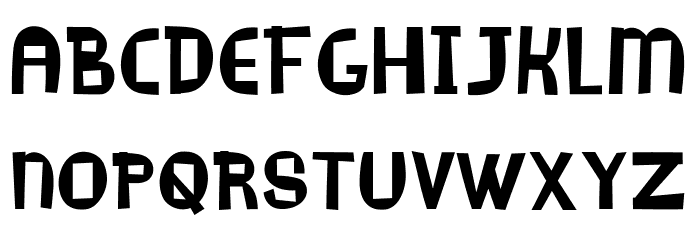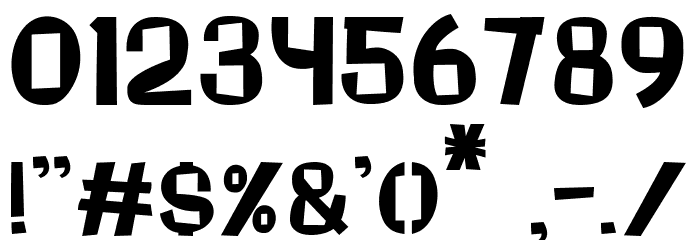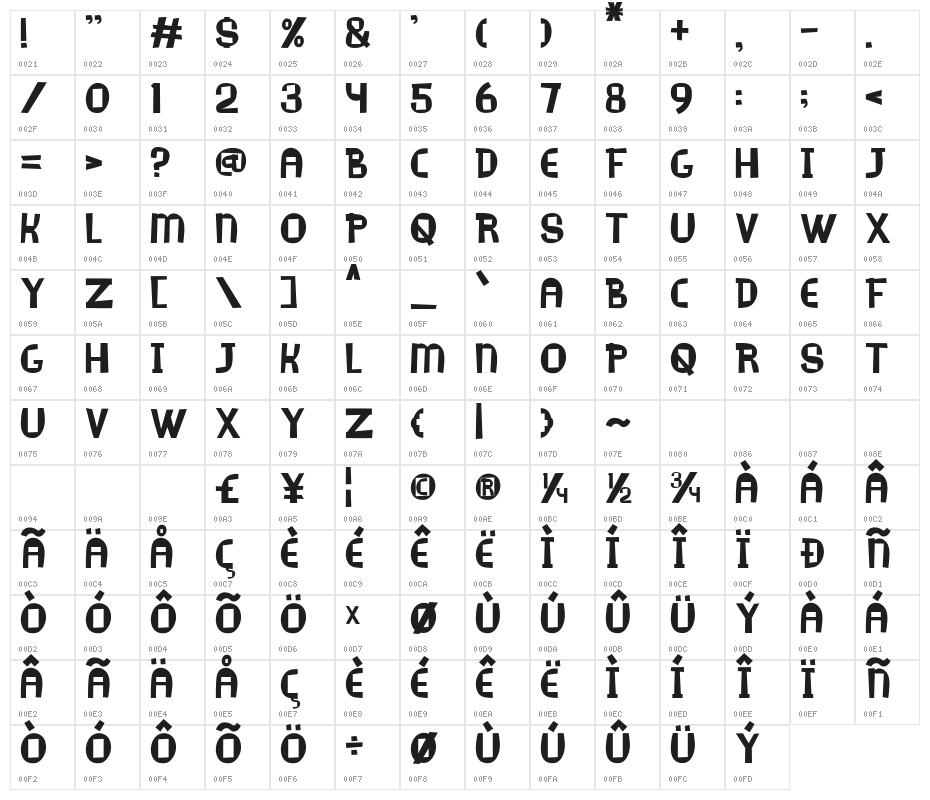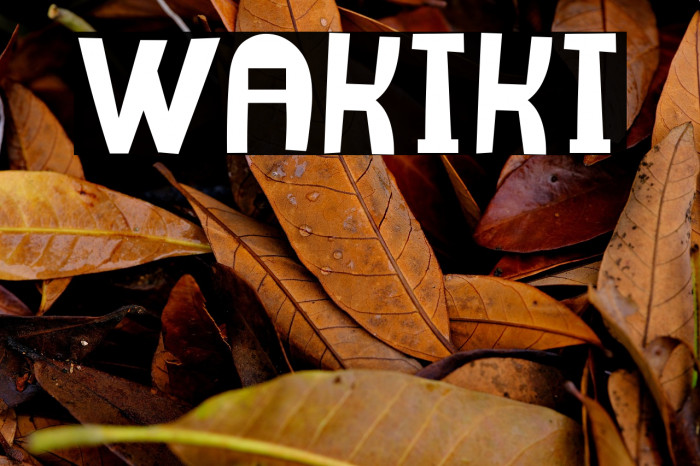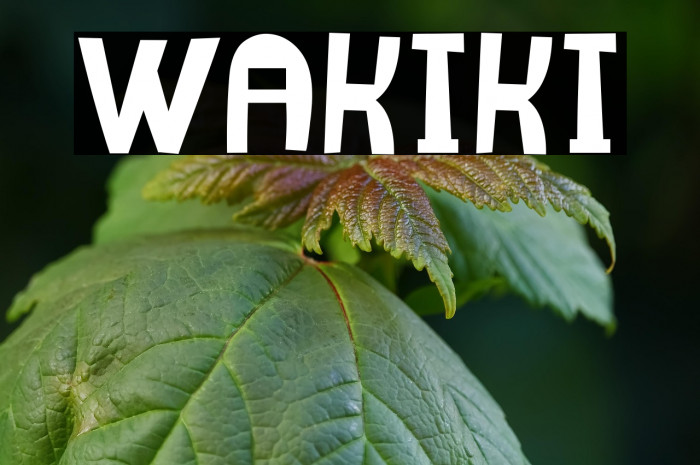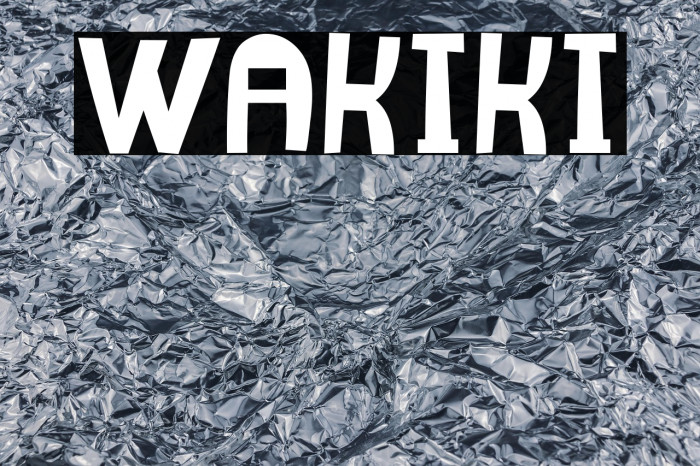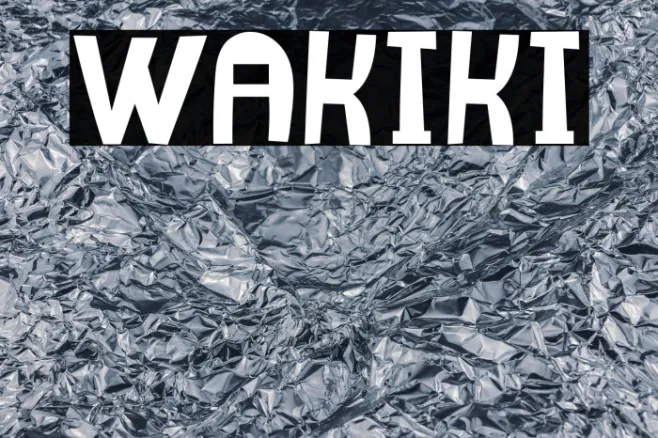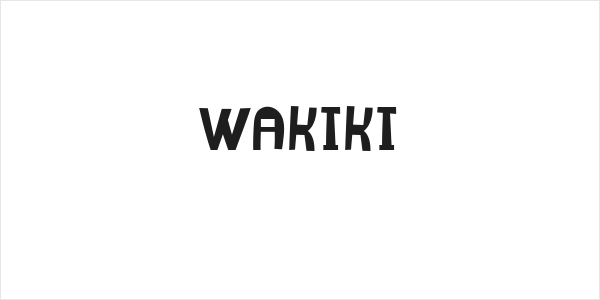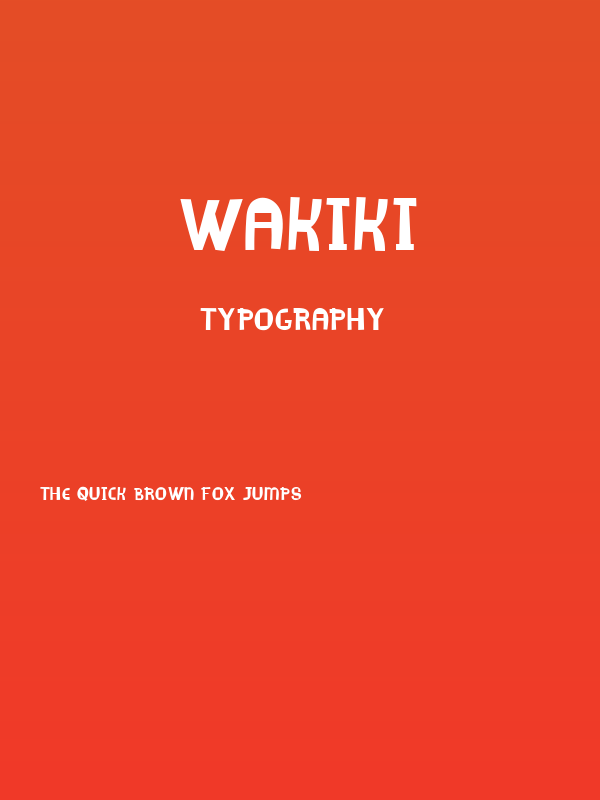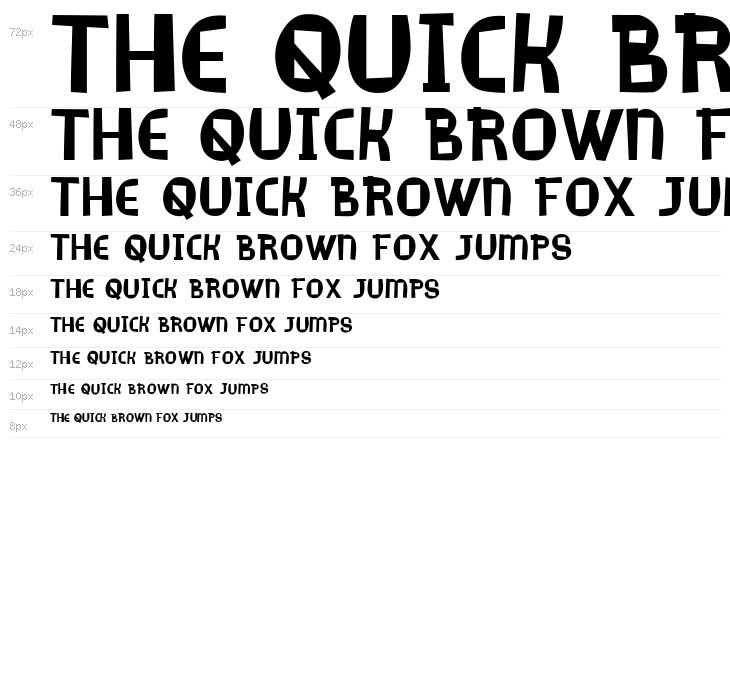
Wakiki Font
This font features a playful and bold design with a unique, hand-drawn appearance. The characters are slightly irregular, giving them a whimsical and casual feel. The uppercase letters are distinct with rounded edges and varying stroke widths, while the lowercase letters maintain a consistent style that complements the uppercase. The numerals are bold and easily readable, matching the overall aesthetic of the font. Special characters are creatively designed, adding to the font's decorative appeal. This font is ideal for projects that require a fun and informal touch.
A playful, bold font with a hand-drawn, whimsical style.
- Font: Wakiki
- Proposed Projects: Great for children's books, playful branding, posters, and creative invitations.